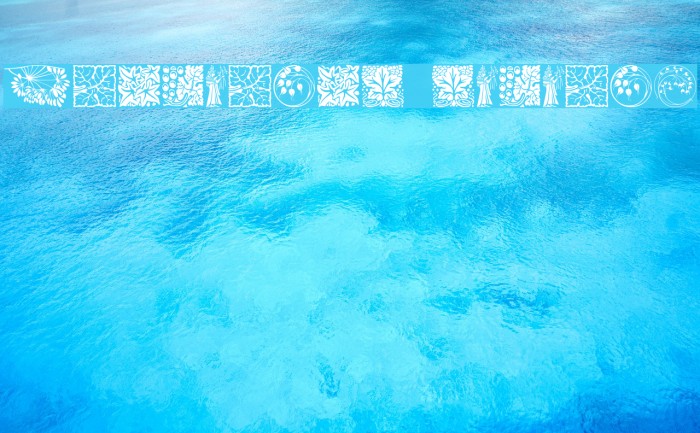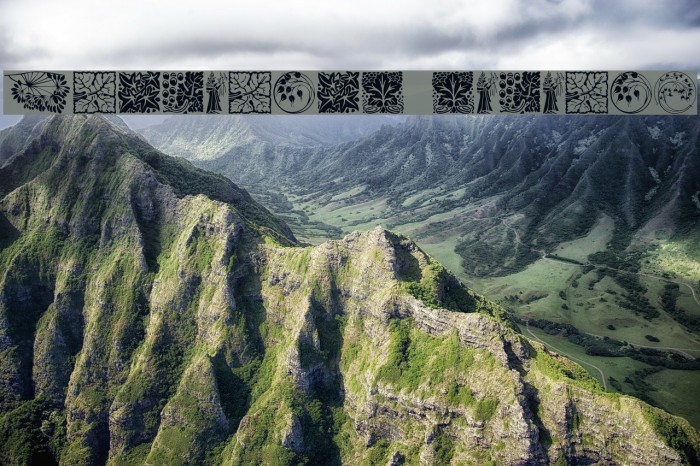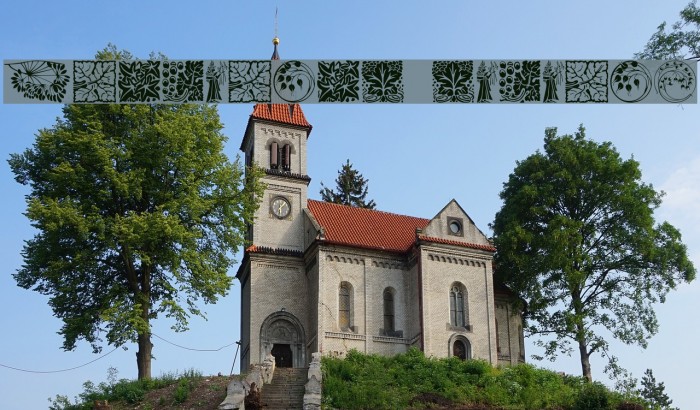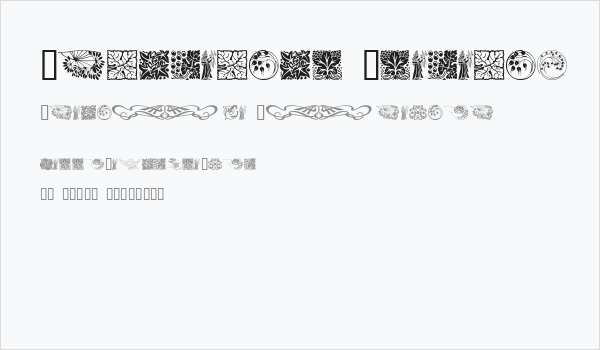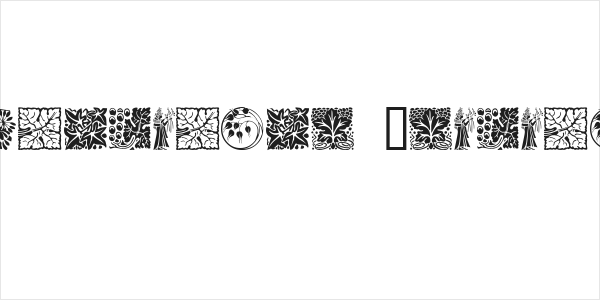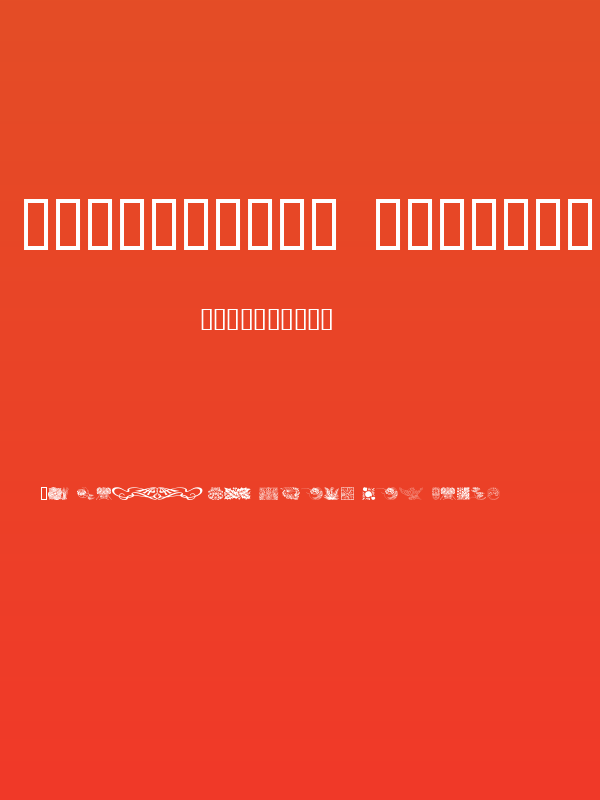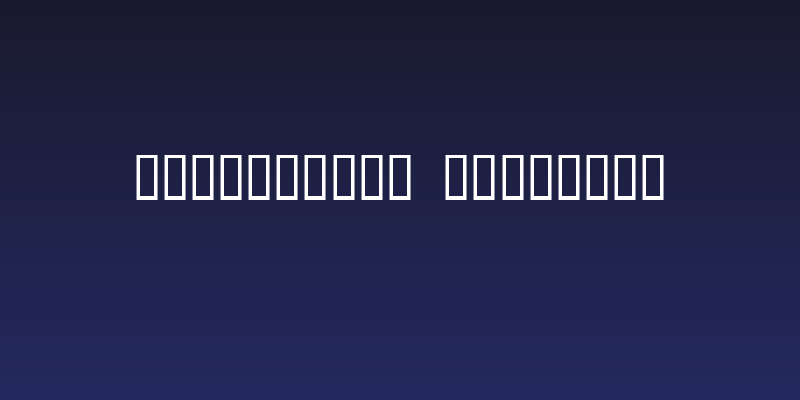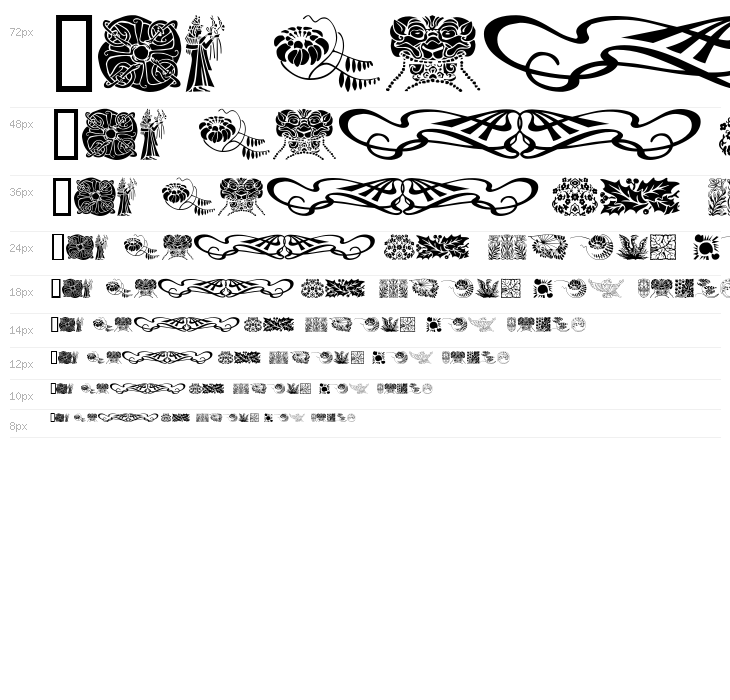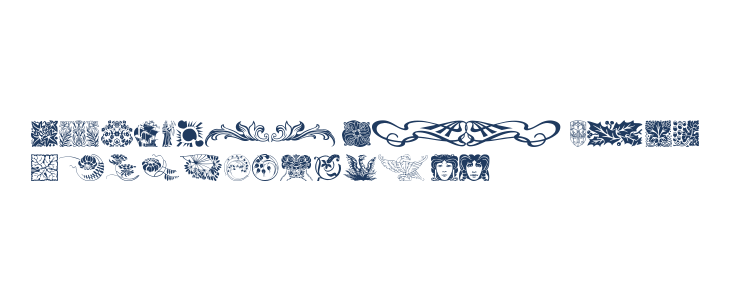
Ornamental Elements Font
Ornamental Elements Description
A decorative dingbat set featuring intricate ornamental elements, including floral motifs, scrollwork, medallions, and stylized faces. The designs are highly detailed and symmetrical, evoking a vintage or classical aesthetic suitable for embellishing documents or designs.
| Overall Style | Vintage, Decorative, Classical |
| Use Case | Borders, embellishments, section dividers, decorative accents |
| Proposed Projects | Invitations, certificates, book covers, decorative borders, vintage-themed designs. |